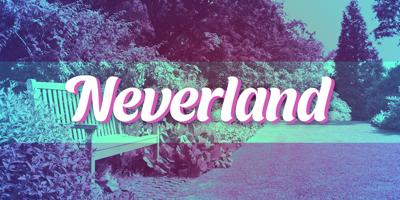
Margaret Free Download
Margaret Font Free Download
This elegant and timeless typeface is perfect for wedding invitations, feminine branding, Instagram quote designs, luxury packaging, lifestyle blogs, and stationery. It’s designed for creators who want to add a delicate and graceful feel to their work.
What makes Margaret Font so exciting is its soft curves, flowing strokes, and handwritten charm. It feels like a love letter from the past wrapped in modern sensibilities. The font balances beauty with legibility, making it not only stylish but also practical for both headlines and decorative accents.
The Margaret Font family includes styles such as Regular, Italic, and Signature variants. It features full uppercase and lowercase alphabets, punctuation, numerals, swashes, and multilingual support. These features give designers the flexibility to create romantic layouts, chic logos, and personal branding that leaves a lasting impression.